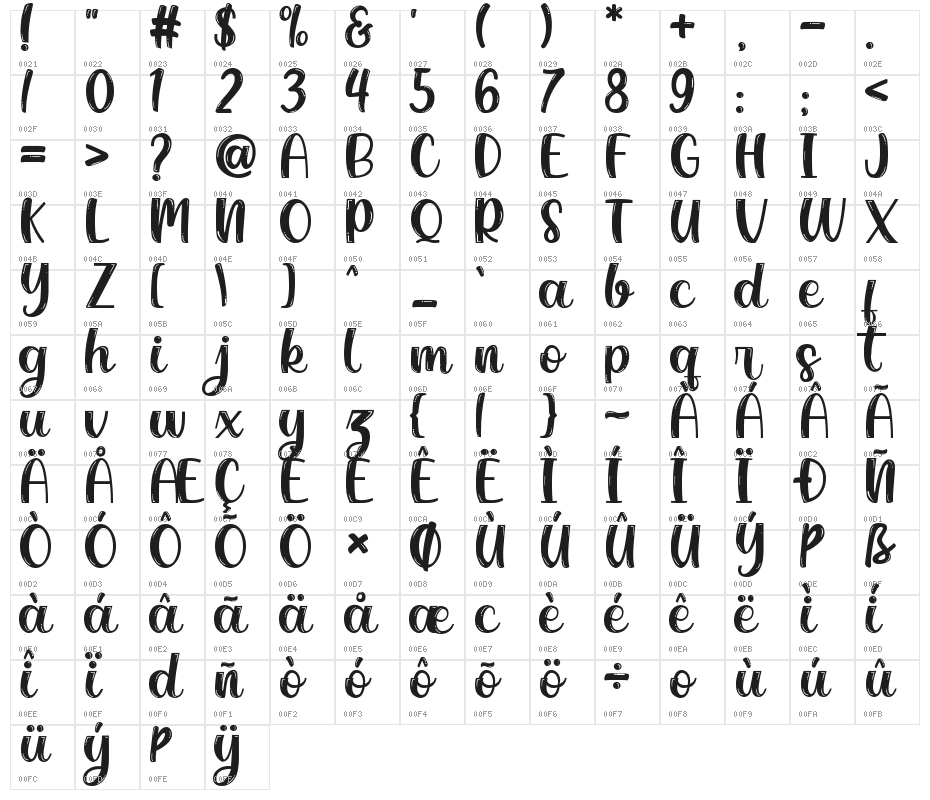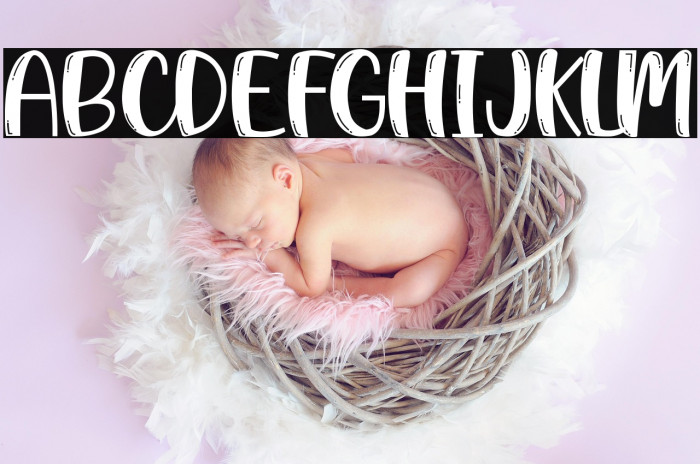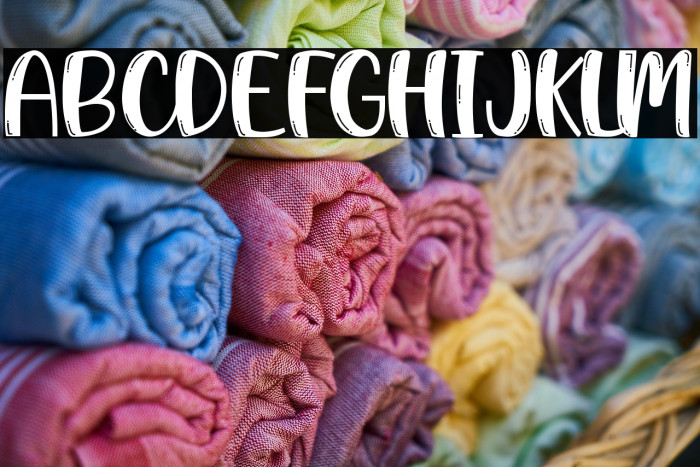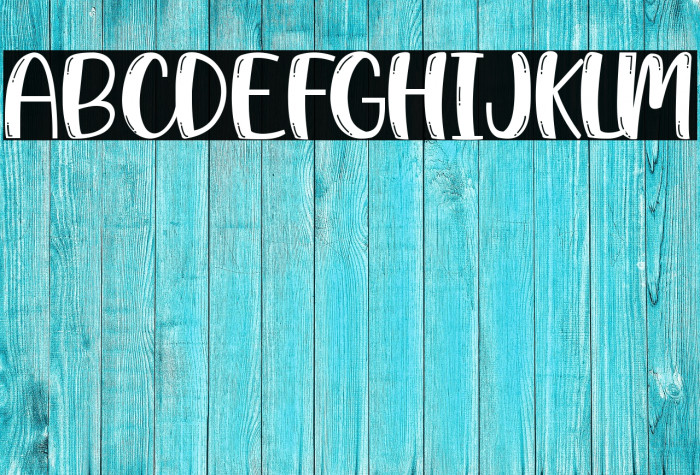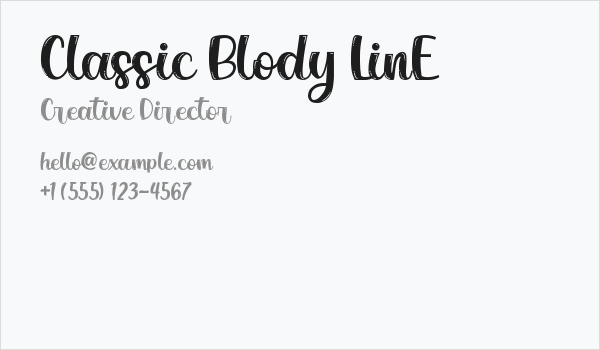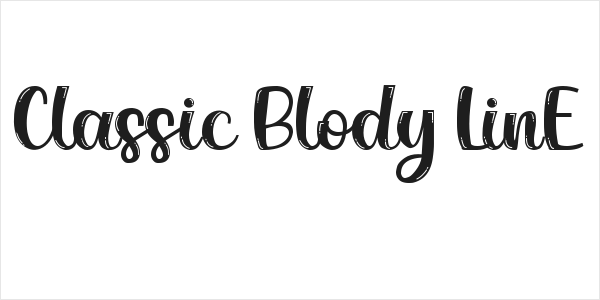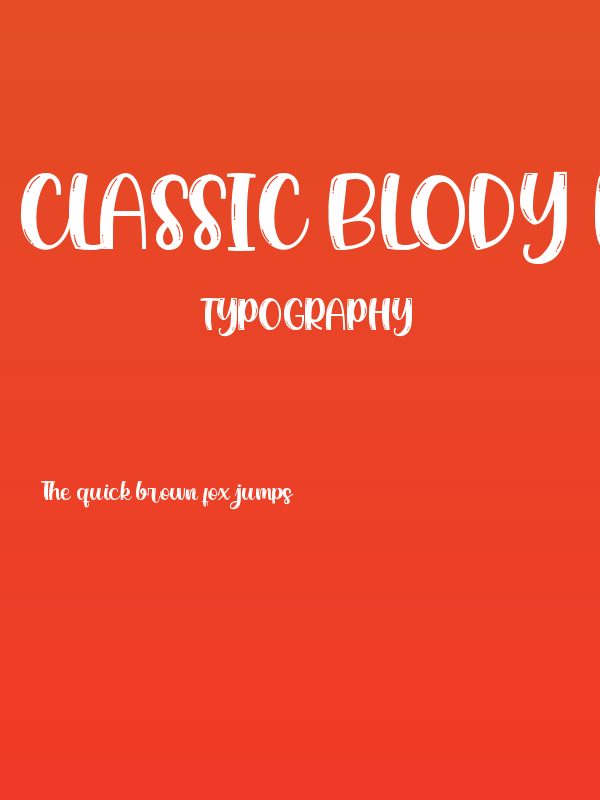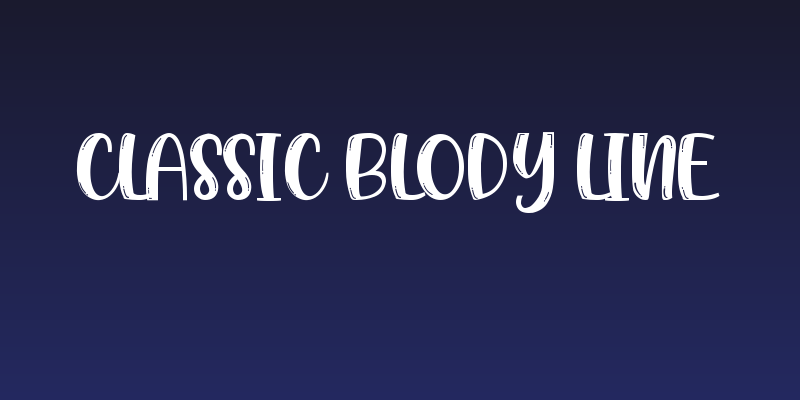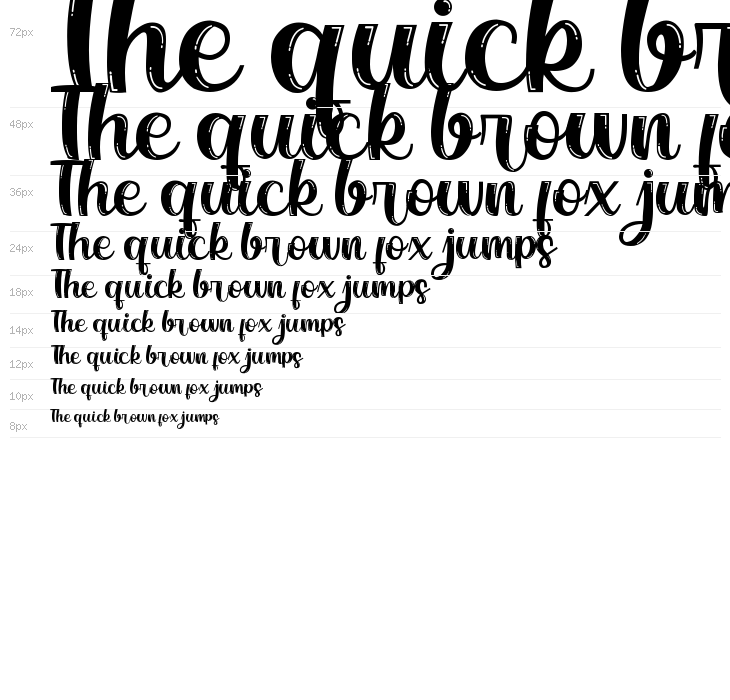
Classic Blody LinE Font
Classic Blody LinE Description
This font features a bold and expressive style with a handwritten appearance. The characters are slightly slanted, giving a dynamic and lively feel. The strokes are thick with a medium contrast, creating a strong visual impact. The uppercase letters are tall and commanding, while the lowercase letters maintain a playful and casual look. The numbers and special characters are consistent with the overall style, ensuring a cohesive appearance across all elements. The font's decorative nature makes it suitable for creative and artistic projects.
| Proposed Projects | Ideal for greeting cards, posters, branding, and social media graphics where a personal and artistic touch is desired. |